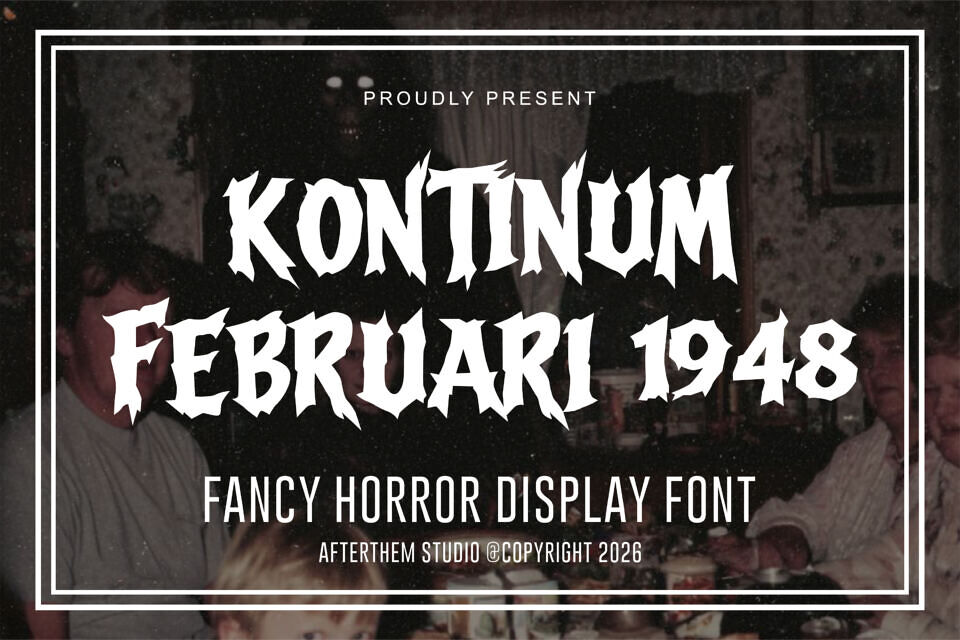
Kontinum Februari 1948 Font
Kontinum Februari 1948 is a bold, decorative display typeface with a dramatic, edgy look that suits horror, Halloween, and fantasy themes. Its heavy, stylized letterforms feature sharp angles and irregular cuts that create an intense, eye-catching presence, perfect for posters, titles, and creative graphic projects.
The distinct characters convey a brutal, expressive vibe, blending fancy and inferno-inspired aesthetics for striking visual impact.